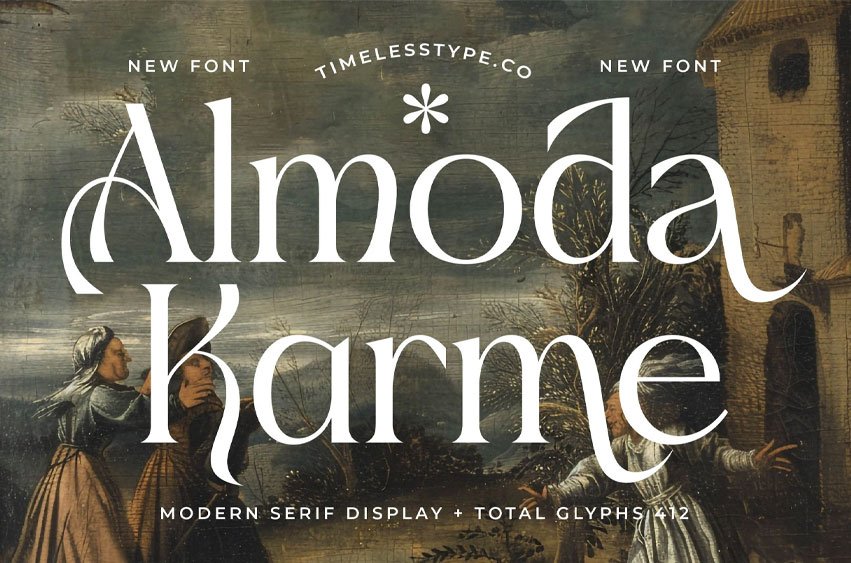
Almoda Karme Font is a modern serif display font that beautifully merges classic elegance with contemporary sophistication. With 412 total glyphs, this typeface offers stunning alternates and graceful ligatures designed to elevate your branding, editorial titles, posters, and packaging with a timeless touch.
Each letter in Almoda Karme carries a sense of artistry — bold yet refined, perfect for creating luxurious typographic compositions that stand out in both print and digital design. Inspired by historical beauty and modern aesthetics, this font is ideal for those who seek a balance between classic and creative.